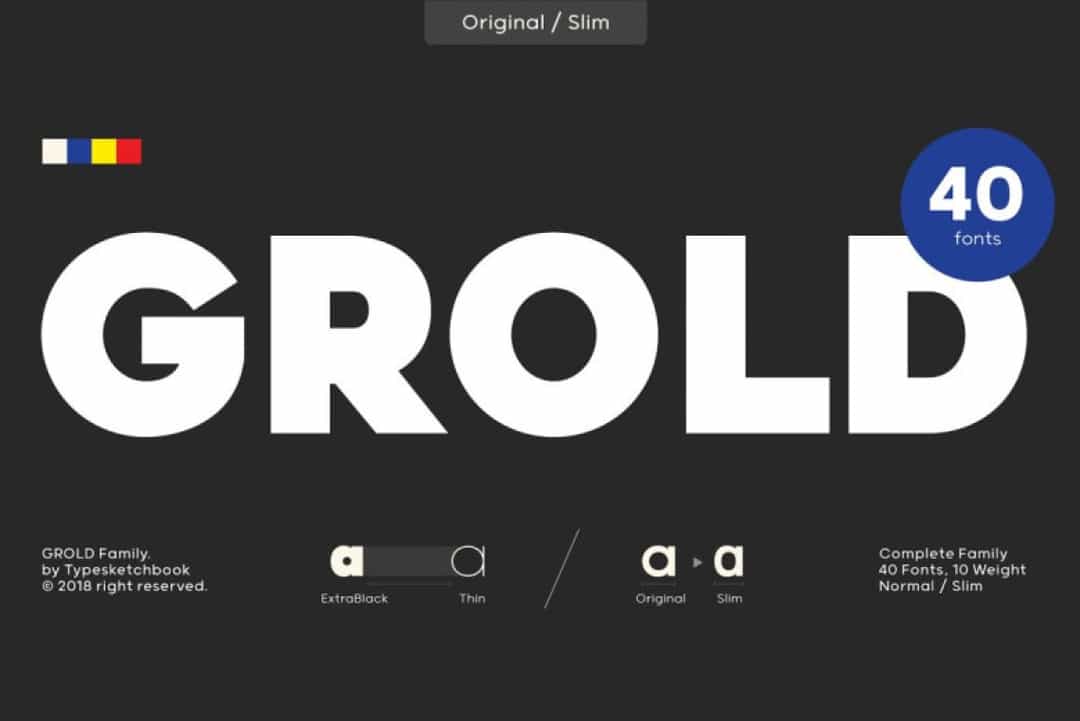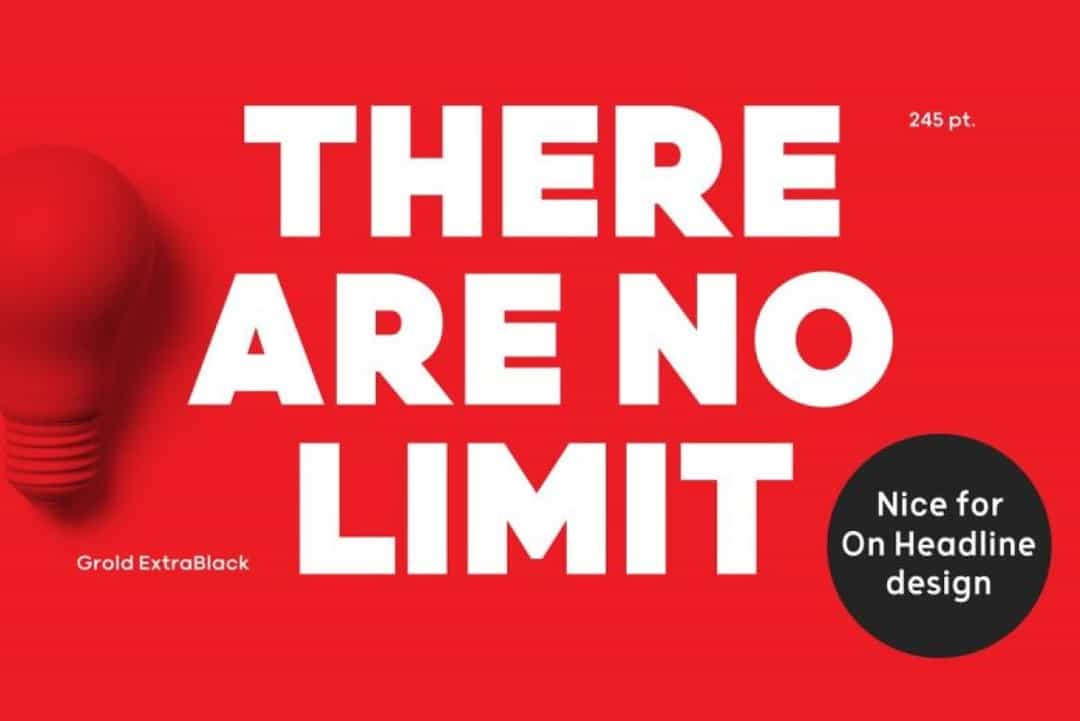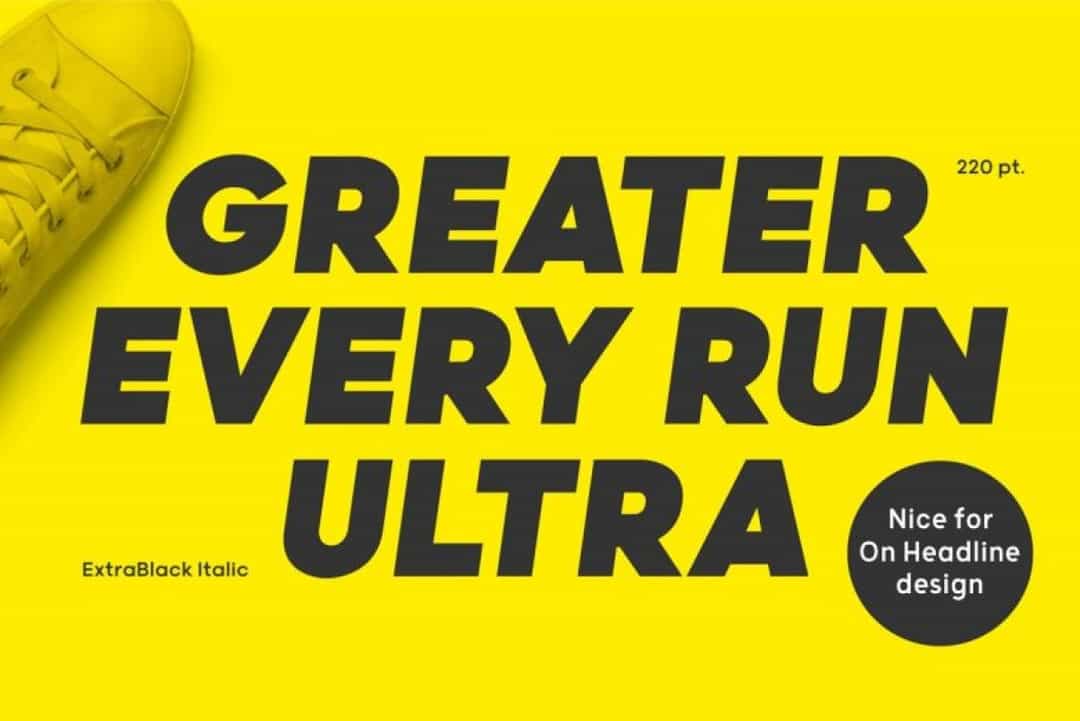
Grold Font Family is an original and contemporary sans typeface ideal for headlines or small text, offering 40 fonts in 10 weights: regular and slim options. Providing users with plenty of typographic flexibility when it comes to headlines or small text needs, its 40 fonts in total represent each weight category – regular or slim choices! It makes an eye-catching statement of intent with every use imaginable from headlines to small text snippets!